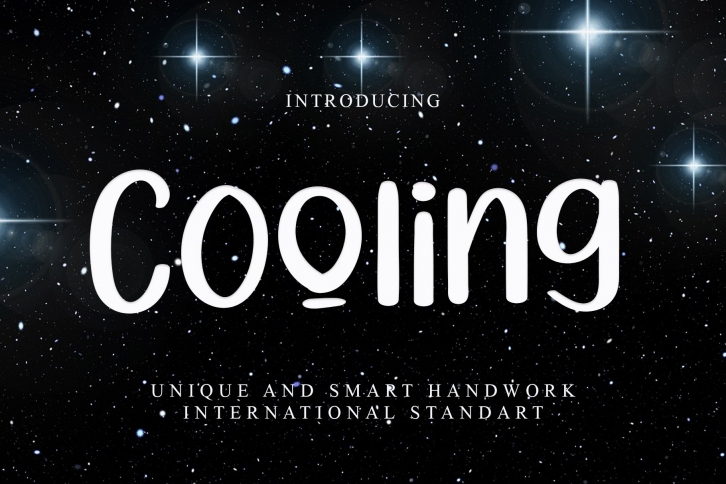
Cooling is a gorgeous font that was realeased on March 15, 2022. The font can be used in many style contexts and design environments. Perfect for invitations, magazines, websites, logos, and more! It was designed by Giart Studios and the file size is 10.89 MB. Thanks for checking out this font!